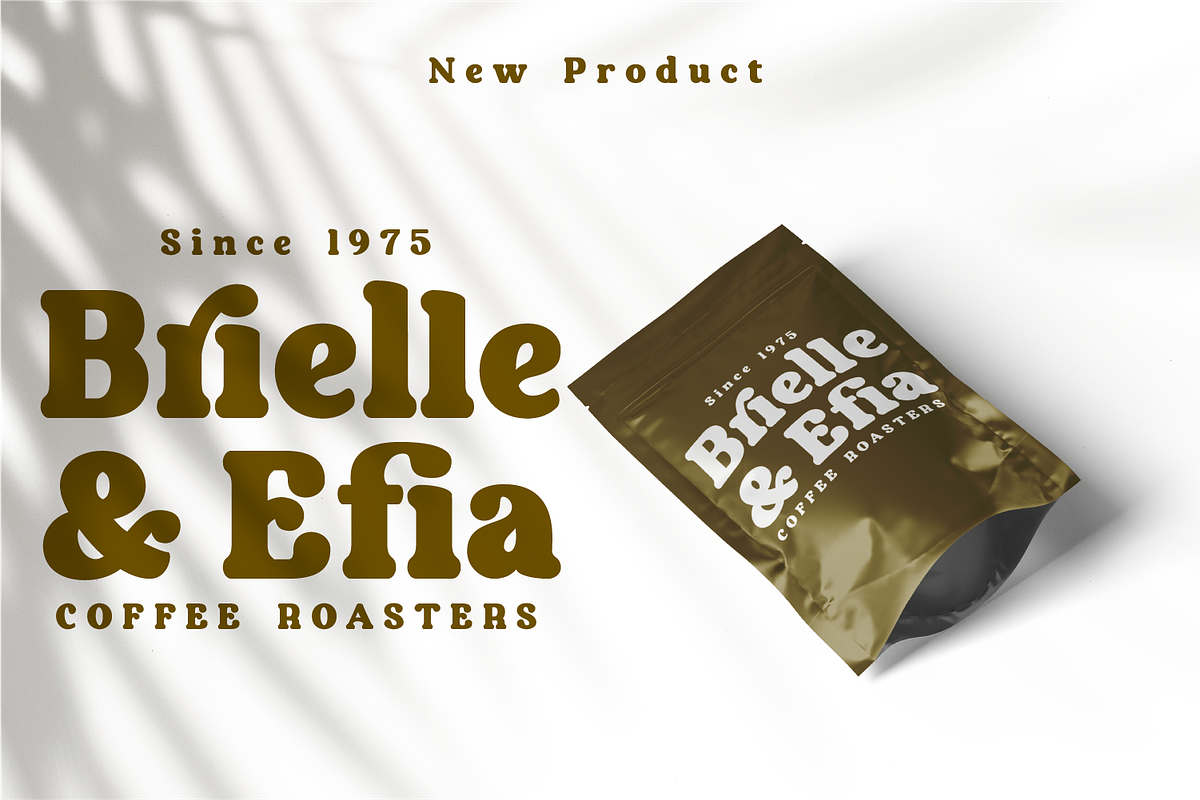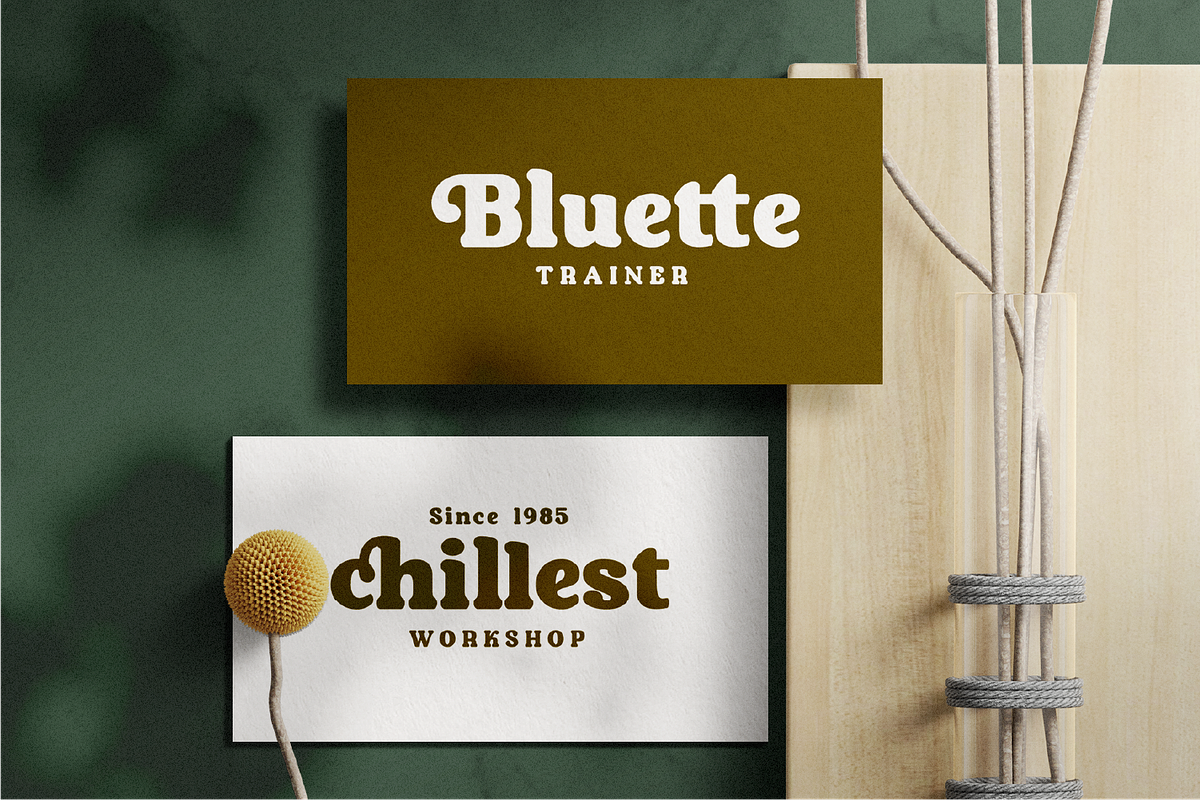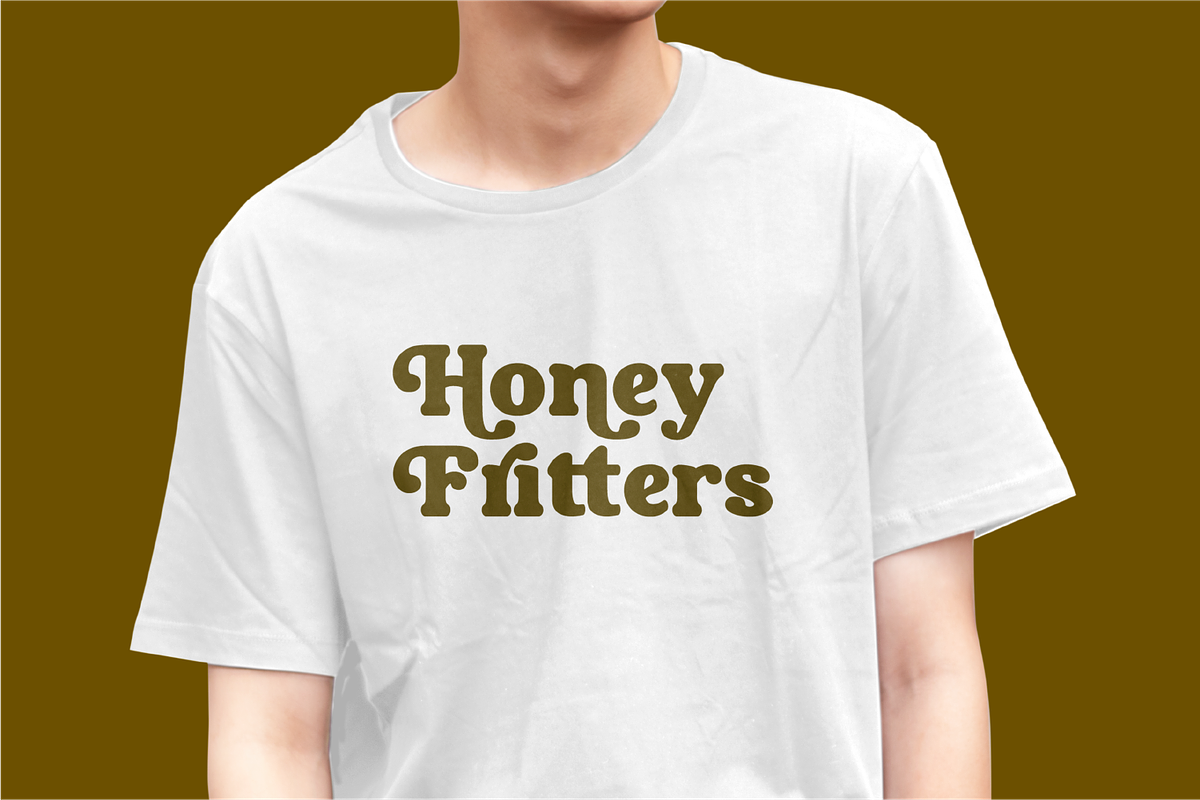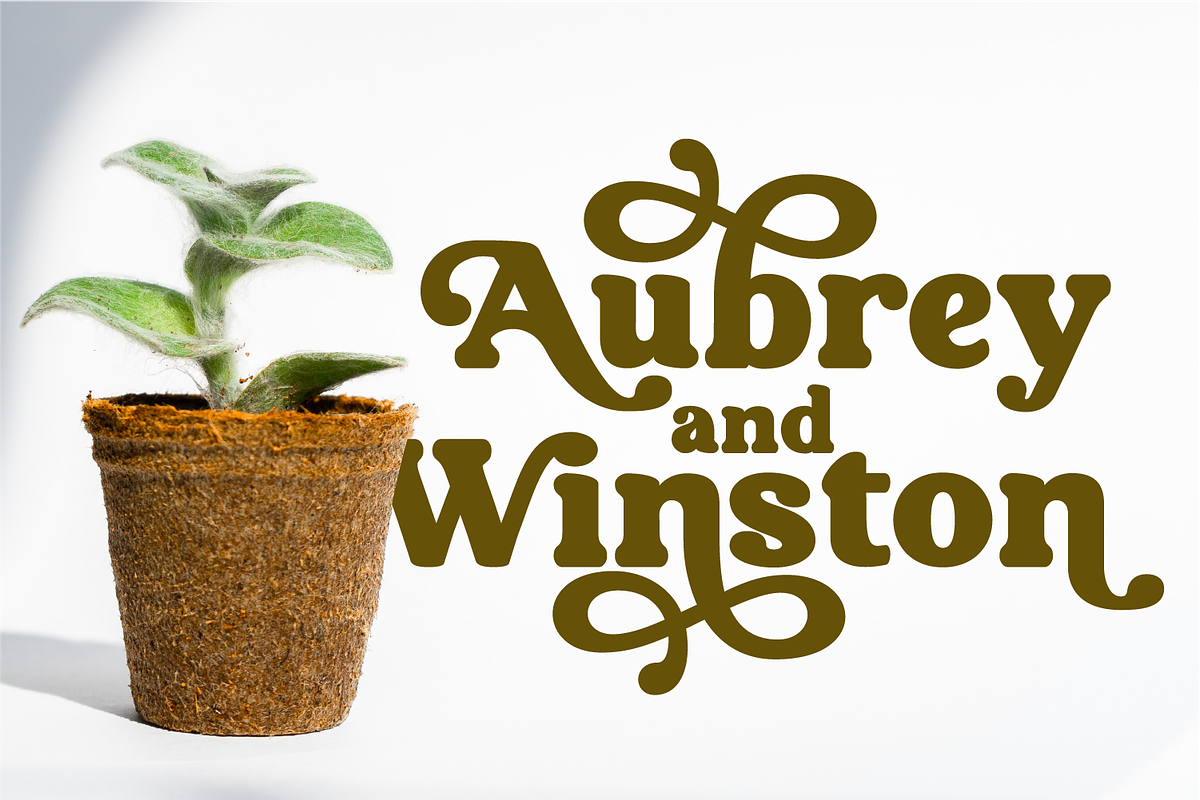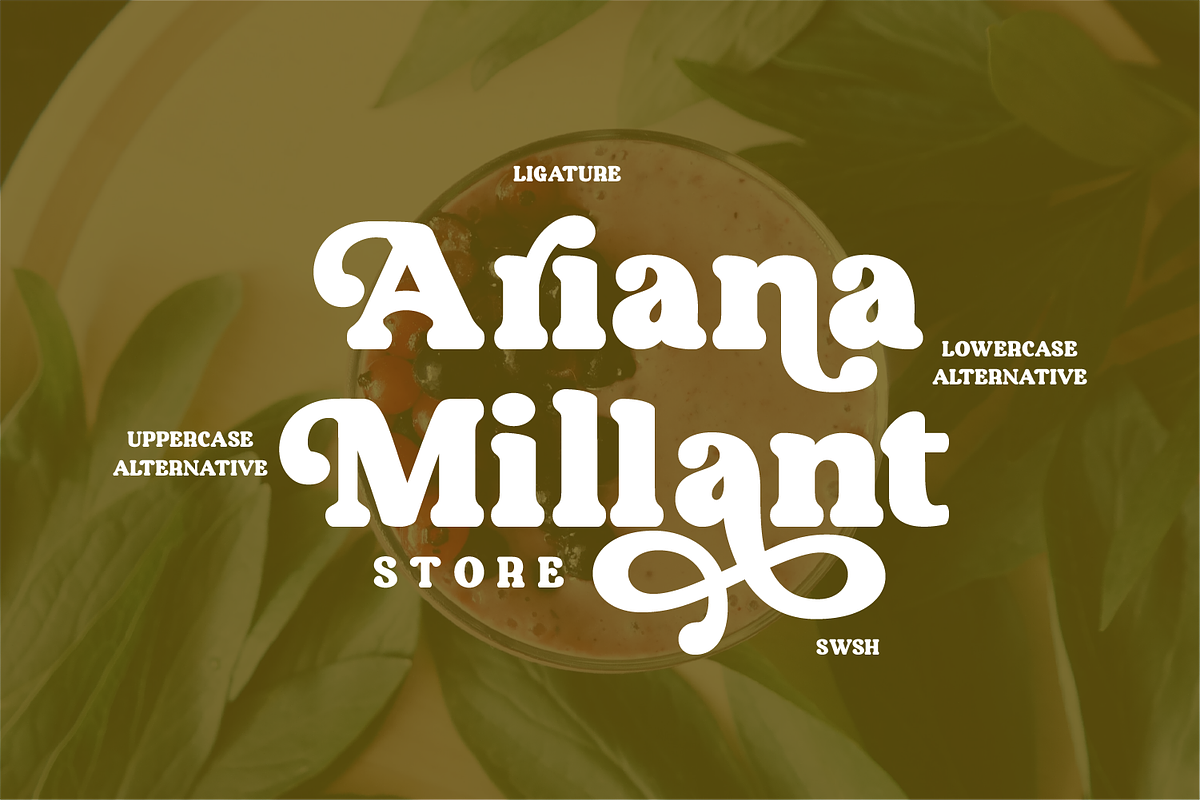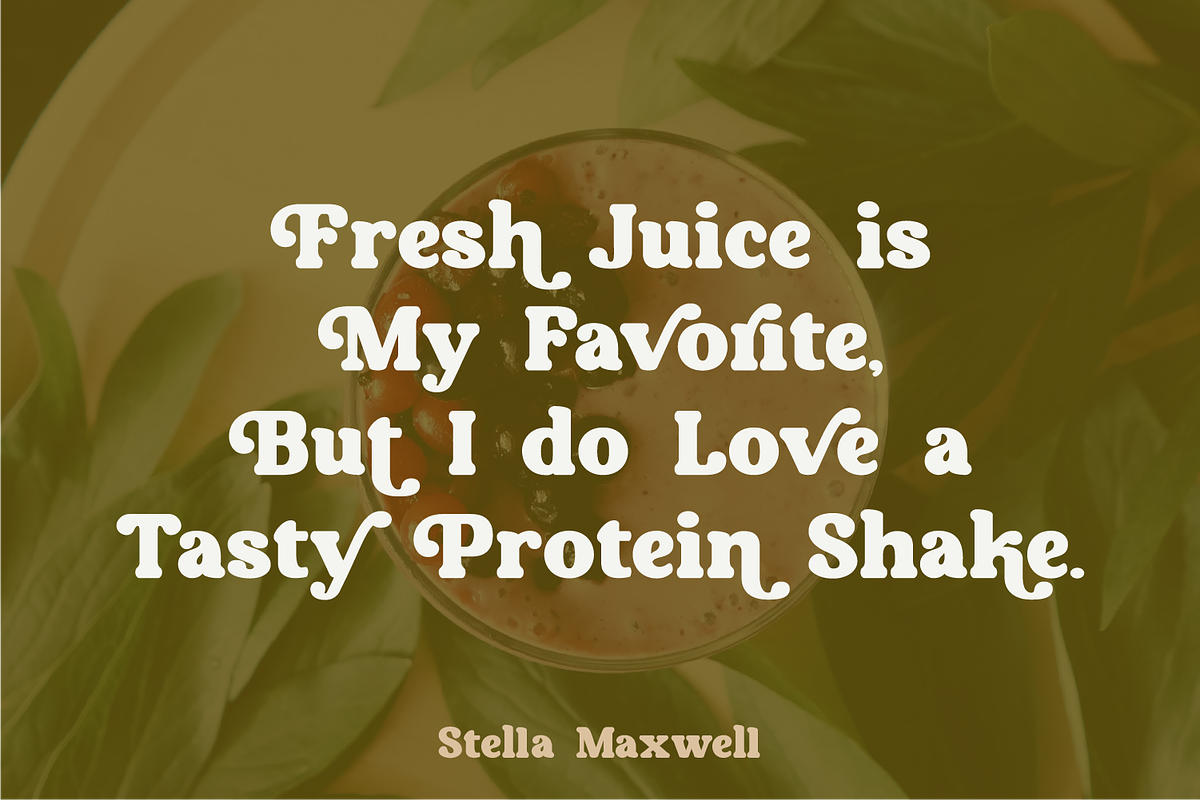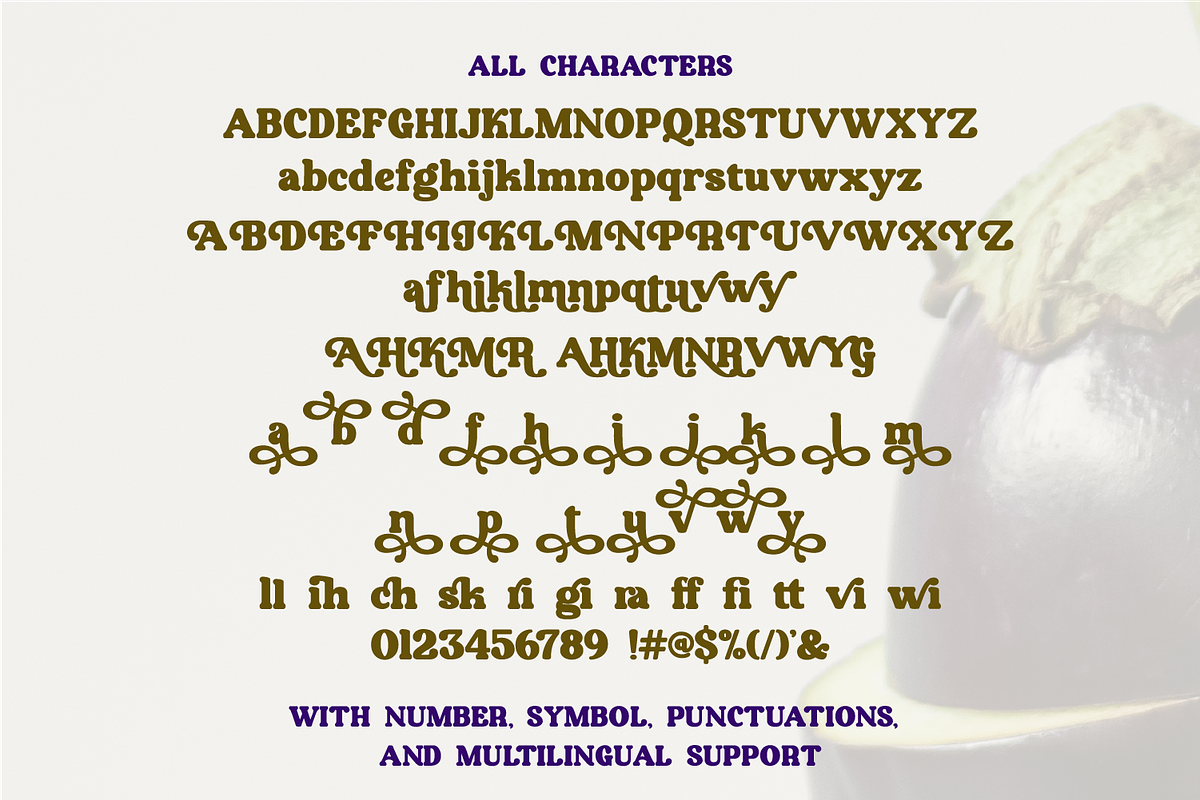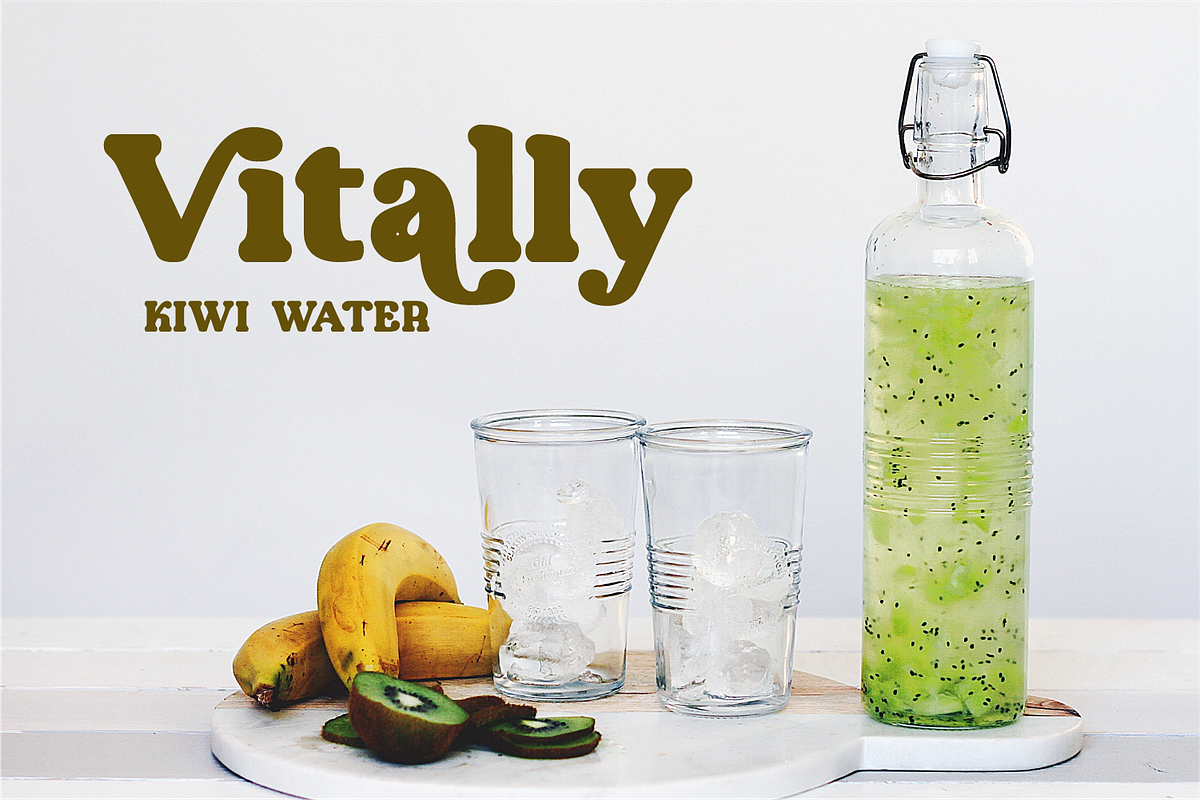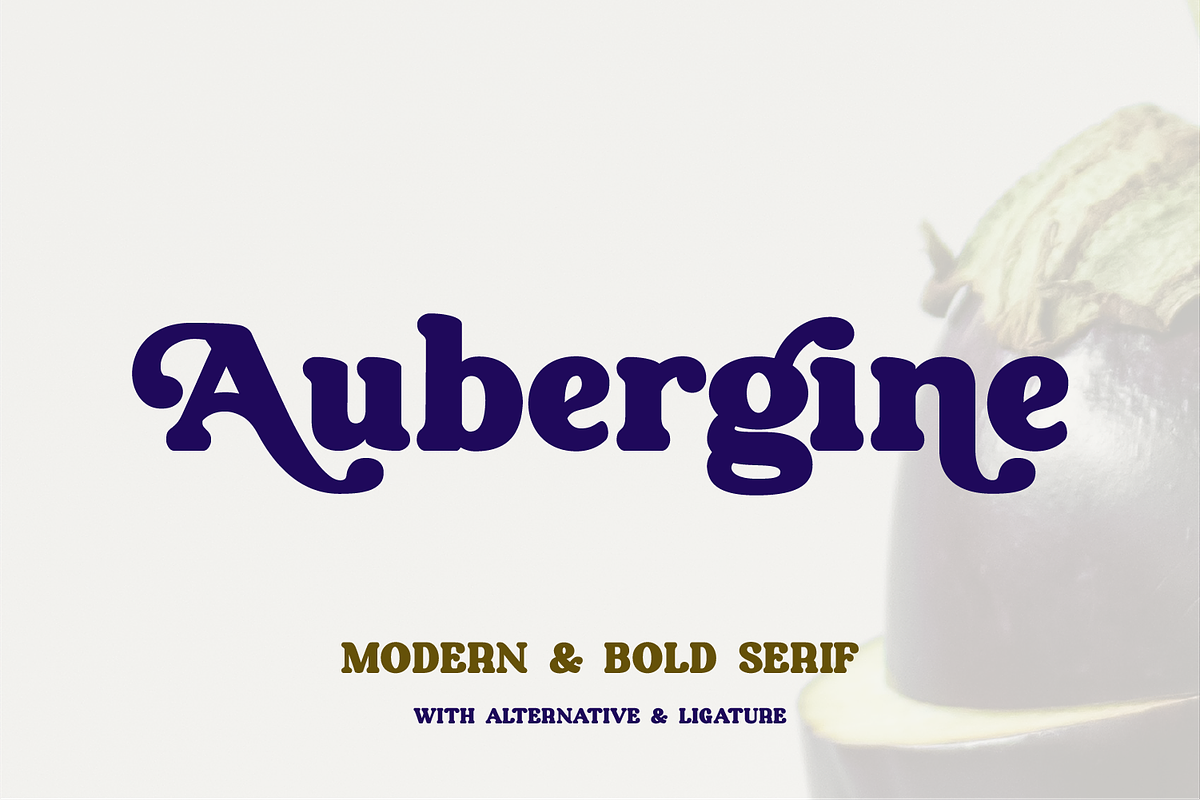
Aubergine - Modern Bold Serif
Introducing, new bold serif, Aubergine - Modern Bold Serif
Aubergine - Modern Bold Serif is a bold serif font that has a refreshing feel. The existence of various alternatives using swash will create a modern and fresh feel that is suitable for your design. Perfect for cute quotes, packaging, branding, invitations, greeting cards and more.